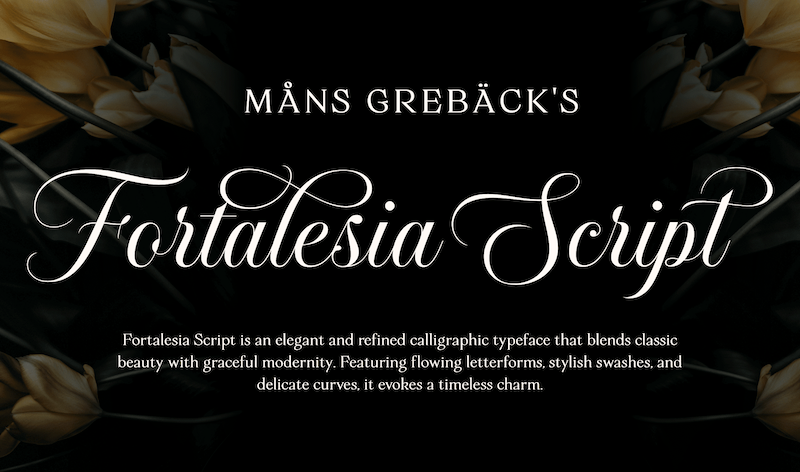
| Font name: | Fortalesia Script |
NOTE: This font is for PERSONAL USE ONLY! To purchase a commercial license, visit: https://www.mansgreback.com/product/fortalesia-script Fortalesia Script is a flourish-rich calligraphy typeface, designed with elegance and flair. The capital letters sweep into wide, expressive loops. For questions, please visit https://mansgreback.com/faq |